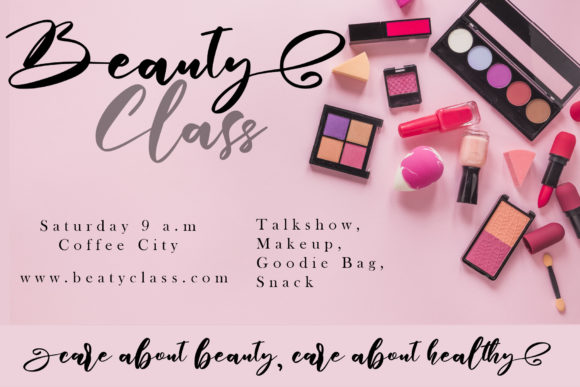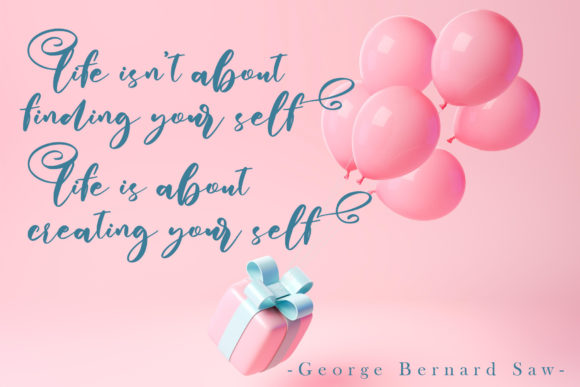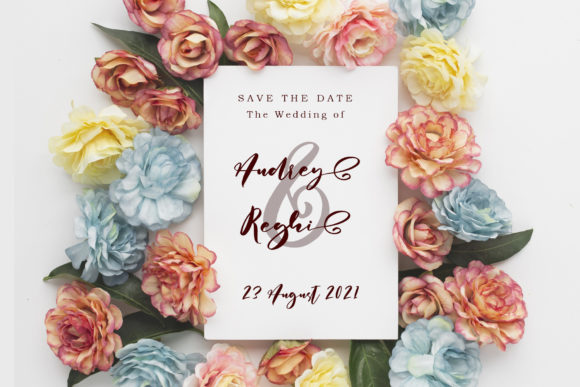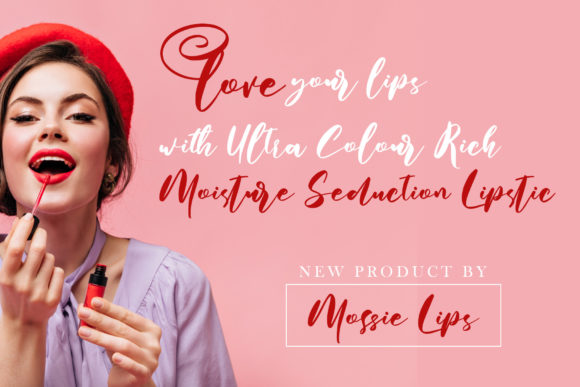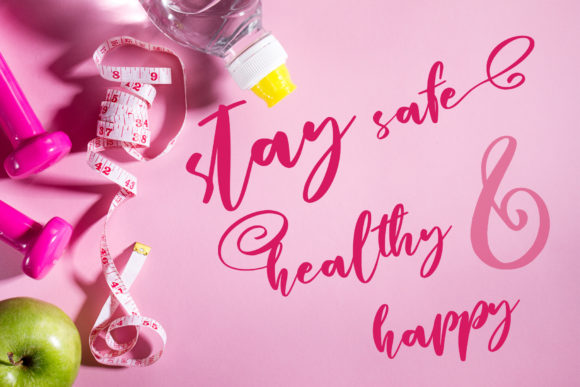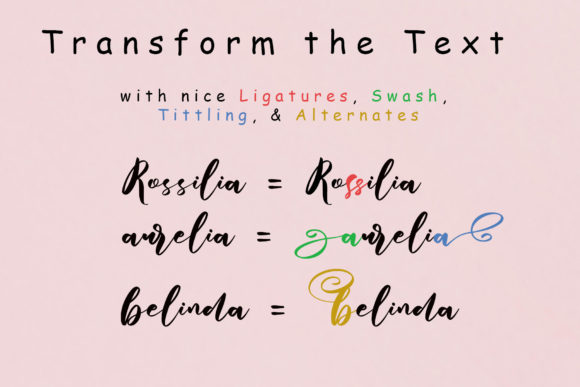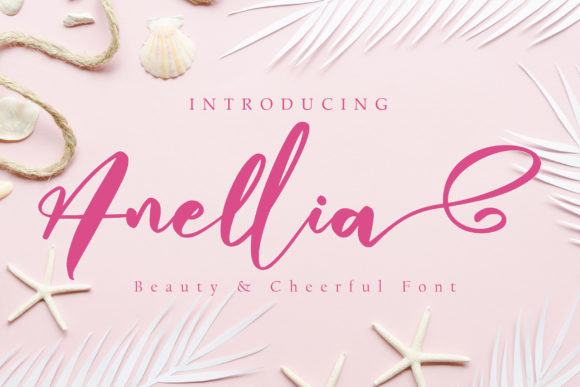
Introducing Anellia Font: The Ultimate Refined Cursive Handwritten Font
Are you a designer or crafter looking for a versatile and elegant font to elevate your creative projects? Look no further than Anellia Font, a refined, all-round, and cursive handwritten font that is sure to impress. With its beautiful and well-balanced characters, Anellia Font matches a wide pool of designs, making it the perfect addition to your font collection.
What Makes Anellia Font So Special?
Anellia Font is a standout font that boasts a range of features that set it apart from other fonts. Here are just a few reasons why Anellia Font is a must-have for designers and crafters:
• Refined and Elegant Design: Anellia Font features a refined and elegant design that is perfect for creating sophisticated and professional-looking projects. Its cursive handwritten style adds a touch of warmth and personality to any design.
• Well-Balanced Characters: The characters in Anellia Font are beautifully balanced, ensuring that your text is easy to read and visually appealing. This makes it perfect for use in a wide range of projects, from wedding invitations to business cards.
• PUA Encoded for Easy Access: Anellia Font is PUA (Private Use Area) encoded, which means that you can access all of the glyphs and swashes with ease. This makes it simple to customize your text and add unique touches to your designs.
• Versatile and Adaptable: Anellia Font is an all-round font that matches a wide pool of designs. Whether you’re creating a modern and minimalist design or a more traditional and ornate one, Anellia Font is sure to fit right in.
Anellia Font is a dream come true for designers and crafters who are looking for a high-quality font that can help them take their projects to the next level. Here are just a few ways that Anellia Font can be used:
• Wedding Invitations and Stationery: Anellia Font is perfect for creating beautiful and elegant wedding invitations, stationery, and other paper goods.
• Branding and Packaging: The refined and elegant design of Anellia Font makes it a great choice for branding and packaging projects, from business cards to product labels.
• Digital Design: Anellia Font can also be used in digital design projects, such as social media graphics, blog headers, and website text.
• Crafting and DIY Projects: Anellia Font is a great choice for crafters who love to create handmade projects, such as journals, planners, and other paper crafts.
Tips for Using Anellia Font
Here are a few tips for getting the most out of Anellia Font:
• Experiment with Different Sizes and Styles: Anellia Font looks great in a range of sizes and styles, so don’t be afraid to experiment and find the perfect look for your project.
• Pair with Other Fonts: Anellia Font pairs well with a range of other fonts, so try combining it with different fonts to create a unique and interesting look.
• Use the Swashes and Glyphs: Don’t forget to take advantage of the swashes and glyphs that are included with Anellia Font. These can add a touch of elegance and sophistication to your designs.
Anellia Font is a refined, all-round, and cursive handwritten font that is perfect for designers and crafters who are looking for a high-quality font to elevate their creative projects. With its beautiful and well-balanced characters, PUA encoding, and versatile design, Anellia Font is sure to become a favorite in your font collection. So why wait? Download Anellia Font today and start creating stunning designs that will leave a lasting impression!